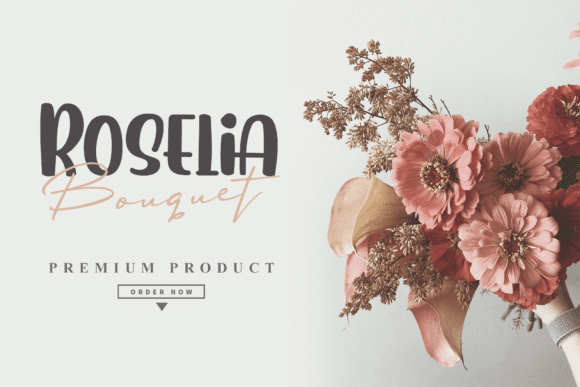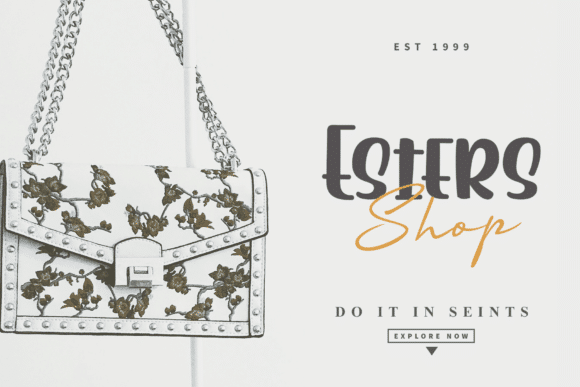
Baimbo Font
Baimbo is a modern and playful handwritten font perfect for crafters and designers alike. This font is compatible with tools such as Photoshop and Silhouette design studio and will be a great addition to your fonts library. Add it to any of your creative designs, and they will capture everyone's attention!